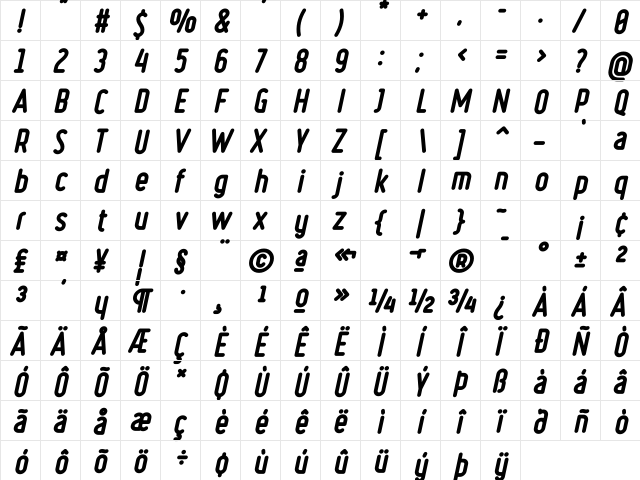
Ruler Volume Overlay Regular Font Preview
Ruler Volume Overlay Regular
Ruler Volume Overlay Regular Font Details
| Foundry | Levi Szekeres |
| Designer | Levi Szekeres |
Design Context for Ruler Volume Overlay Typeface
Ruler Volume Overlay offers clean, dependable letterforms without strong stylistic allegiance, making it a practical choice for designers who need flexibility.